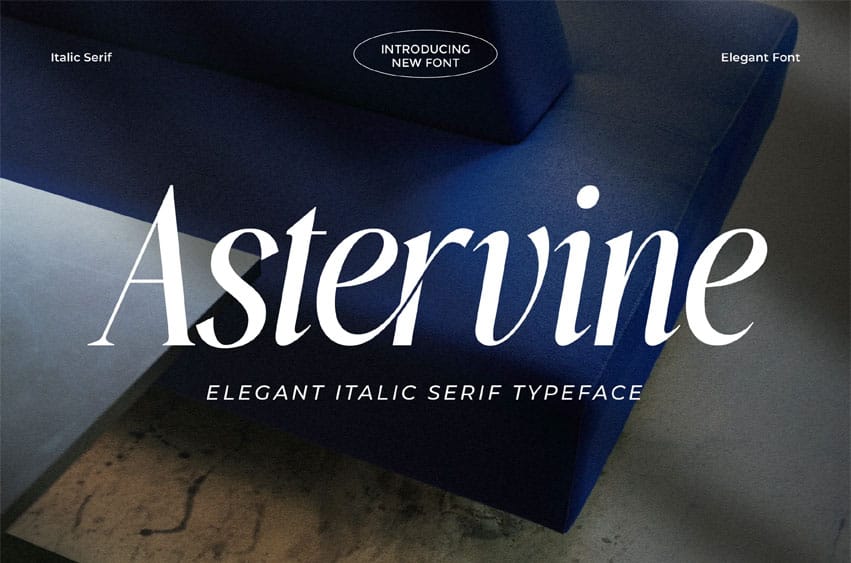
Astervine Font is an elegant italic serif typeface that exudes sophistication and timeless charm. With its graceful curves, refined strokes, and stylish italics, Astervine is designed to elevate your typography with a sense of luxury and finesse. Perfect for editorials, branding, invitations, and high-end design projects, this typeface delivers a harmonious blend of classic serif beauty and modern elegance.
Why Choose Astervine?
Astervine stands out for its blend of classical elegance and modern usability. When you need typography that conveys sophistication and authority without sacrificing readability, Astervine is your go-to serif. It elevates any design, giving it a premium edge that sets it apart from commodity fonts.
Whether you’re designing for high-end fashion, weddings, upscale hospitality, or editorial publications, Elegant Serif Astervine adds that essential touch of elegance and distinction to your work.